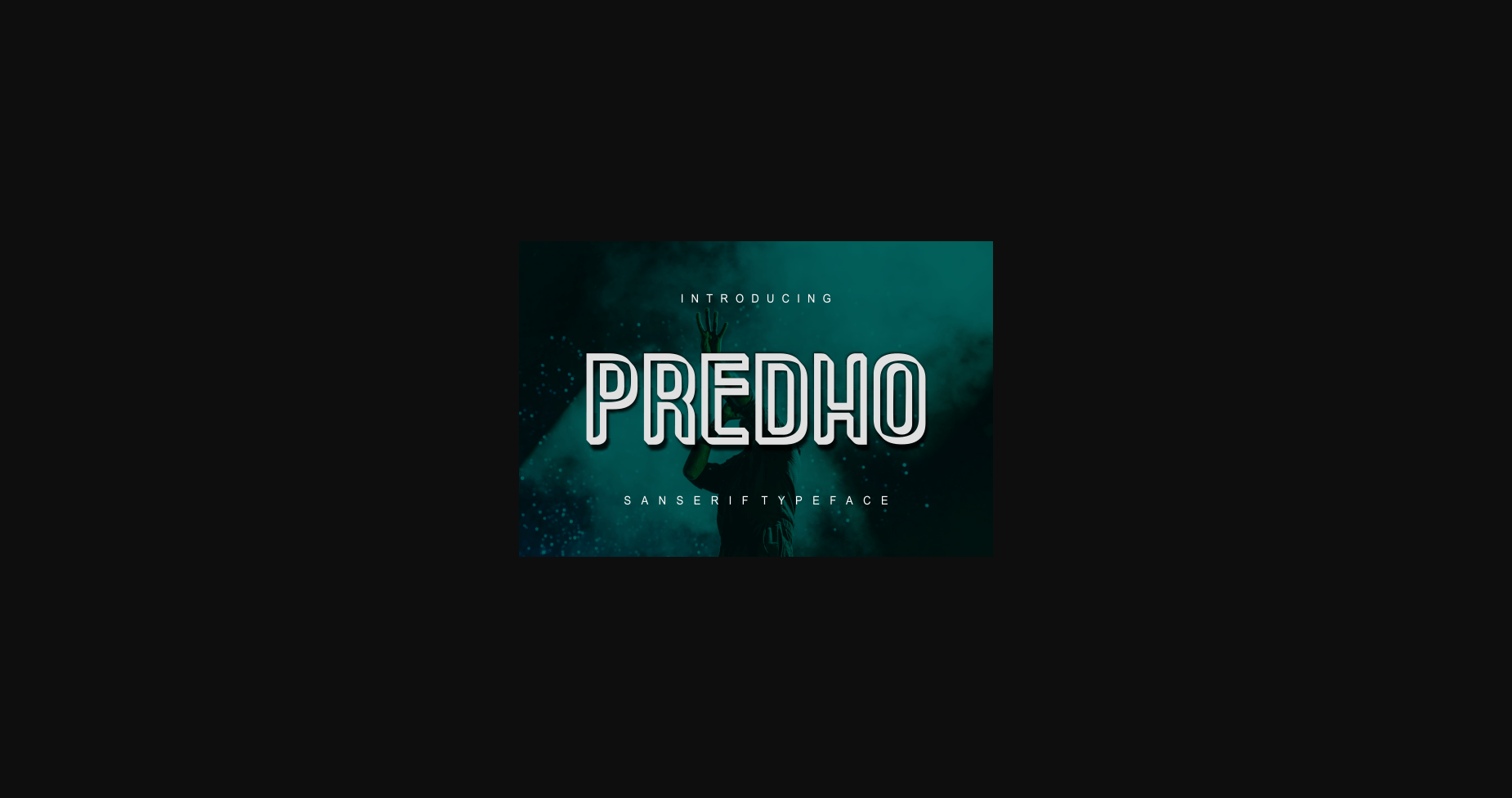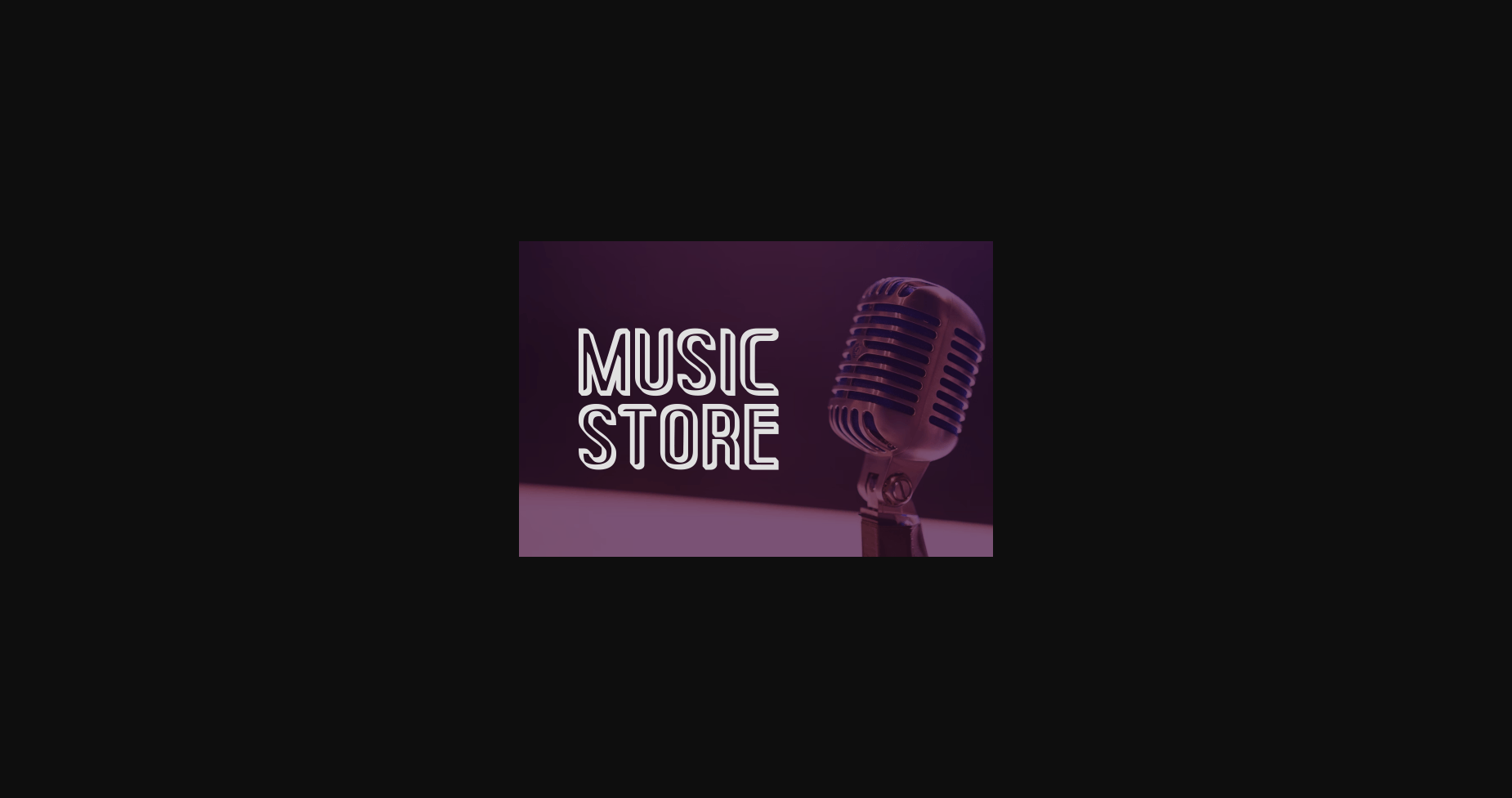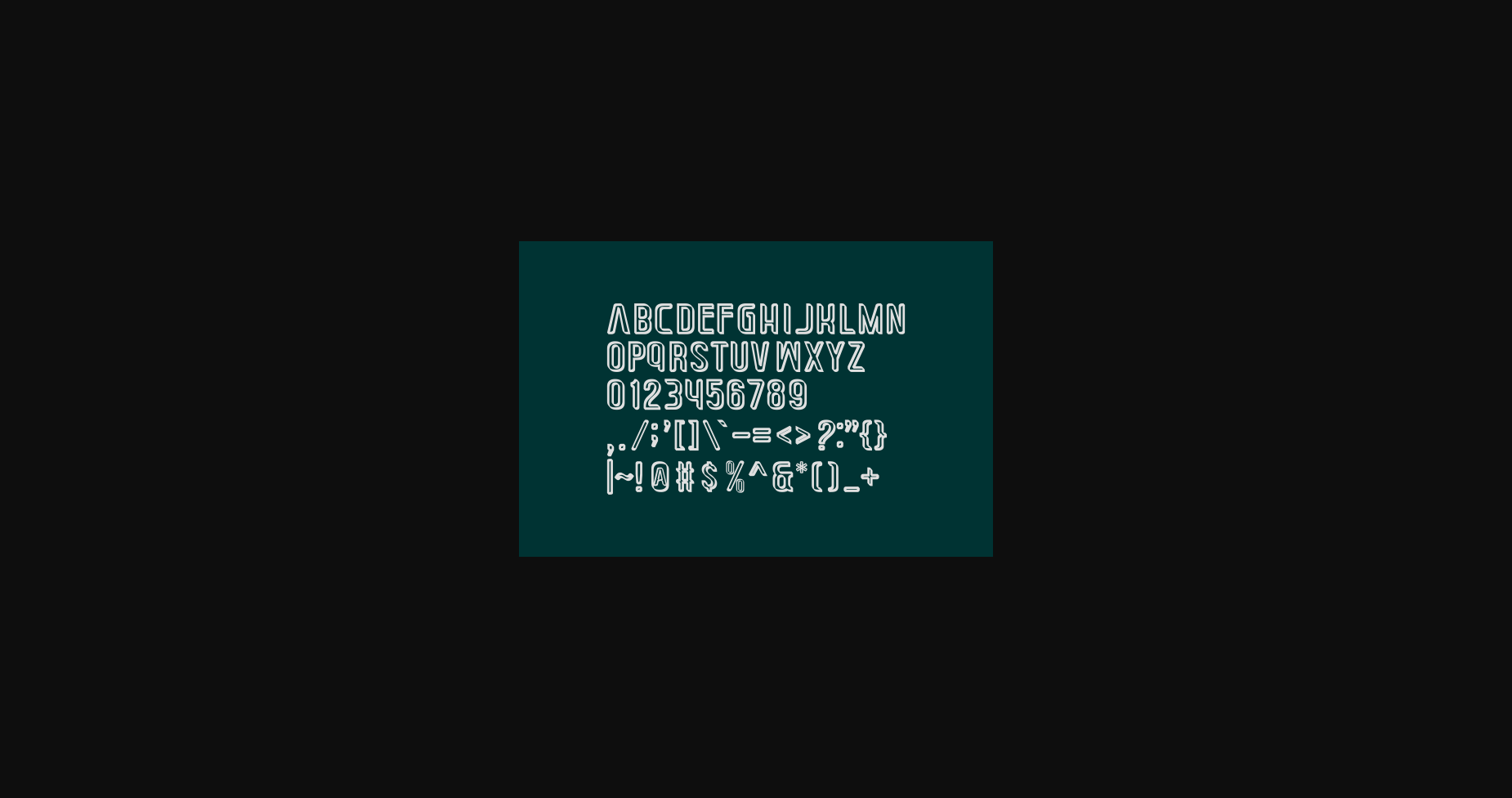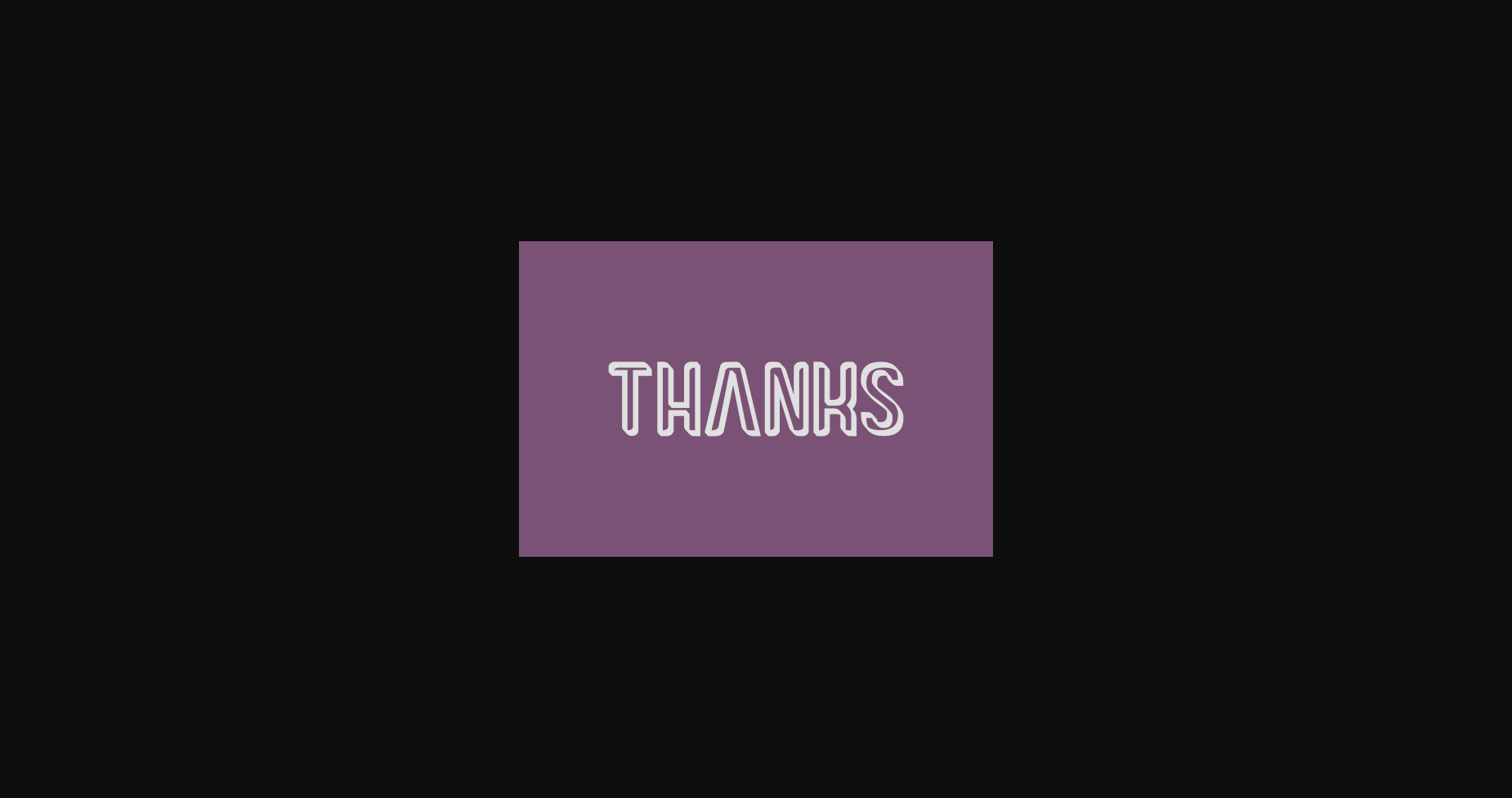
About Predho Font
Predho is a modern sans serif typeface. It was thought to be used in a headline such as magazine covers, packaging design, perfume design, and cosmetics. Use it confidently in your creation and you will notice the incredible touches it can add to your creations.